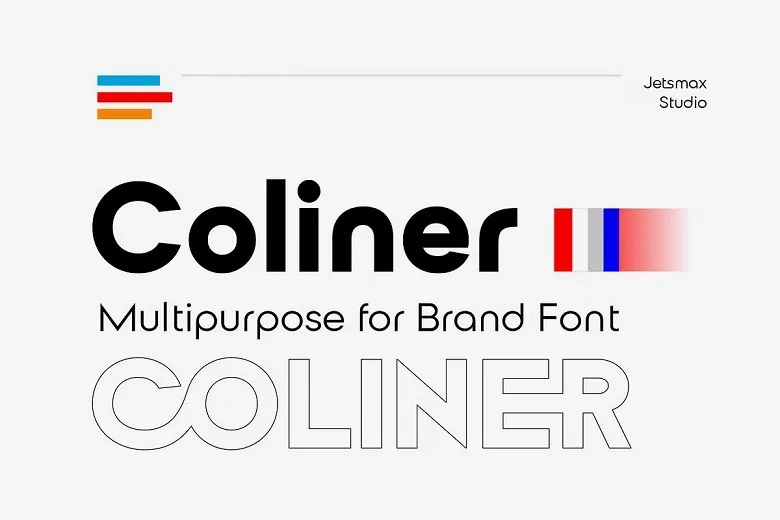
Coliner Font Family
Coliner is a stylish and minimalistic sans serif font with some elements of the geometric superfamily. It is a geometric and symmetrical design which uses forms that are rather logical and clear-cut. Perfect for modern logos, newspapers and magazines, and website design,
Coliner is available in 5 different styles ranging from Light to ExtraBold. Used for headlines, logos or even simple projects, this font gives a feel of professionalism and trendiness to a design.
Coliner Sans Serif Font Family